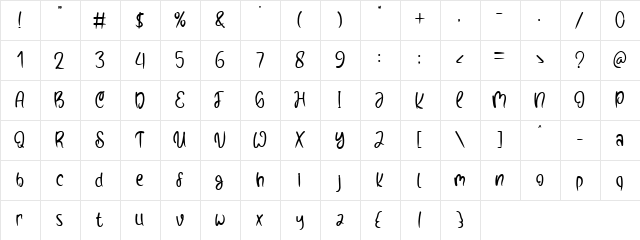
Hand Ball Regular
Design Context for Hand Ball Typeface
Hand Ball flows with the natural rhythm of handwritten lettering, making it ideal for designs that call for warmth and personal expression.
Font Pairing: Combine Hand Ball with a simple geometric sans for maximum contrast — the tension between flowing curves and clean structure is a classic typographic pairing.
Pro Tip: Use Hand Ball for short runs of text — names, titles, or taglines. Extended body copy in script faces tires the eye quickly.